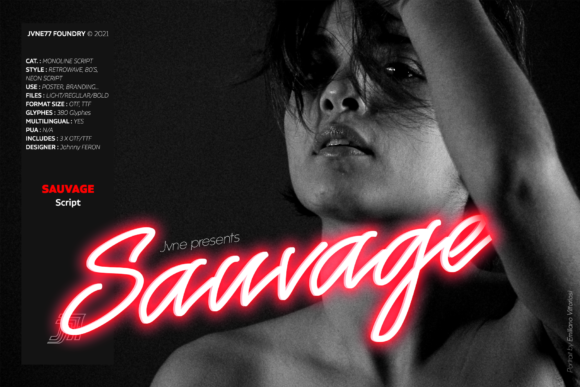
Dive into the world of Sauvage Neon Script, a mesmerizing script font that will ignite your creativity and leave you spellbound. Its captivating neon hues, reminiscent of vibrant city lights, will add a touch of intrigue and allure to your designs.
Unleash your imagination and let your words dance across the page with Sauvage Neon Script. Its flowing lines and natural style effortlessly convey a sense of elegance and sophistication, making it perfect for capturing the essence of special moments and heartfelt messages.
Whether you're designing logos, posters, invitations, or social media graphics, Sauvage Neon Script will effortlessly elevate your work. Its versatility allows you to explore a wide range of styles, from playful and whimsical to chic and sophisticated.
With Sauvage Neon Script, you'll embark on a journey of artistic expression, transforming ordinary words into radiant works of art. Its neon glow will illuminate your designs and leave a lasting impression on your audience. Embrace the brilliance of Sauvage Neon Script and unlock a world of creative possibilities.